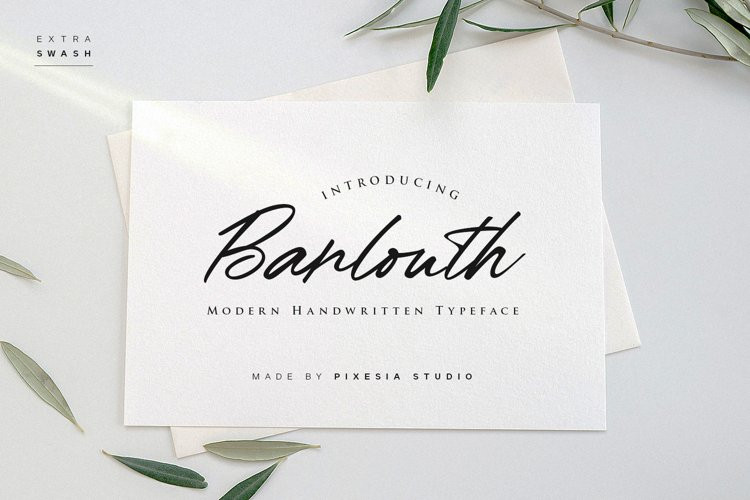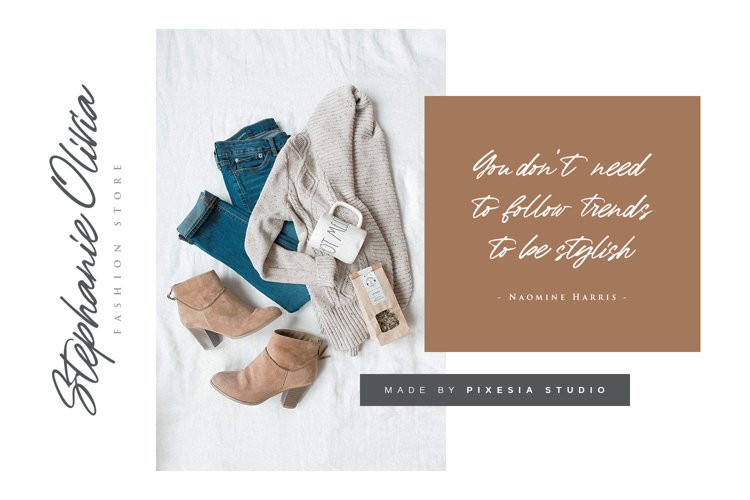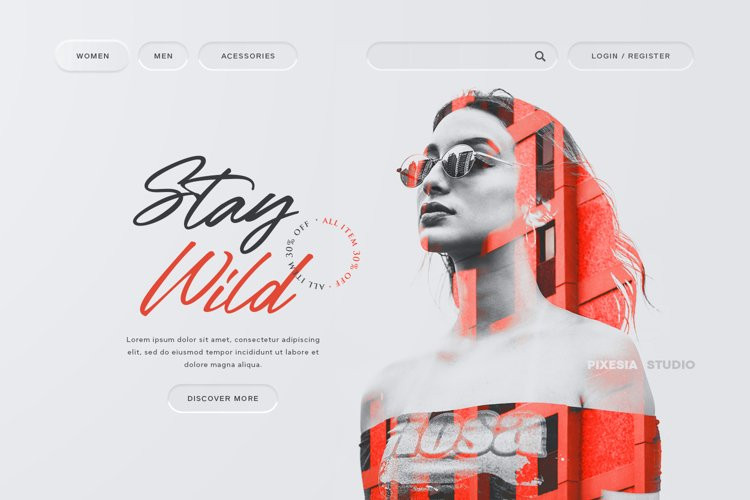
Barlouth Font
Barlouth FontBarlouth is a lovely and delicate script font that exudes elegance and class. This font was particularly crafted for those who need a beautiful and refreshing look to their designs.